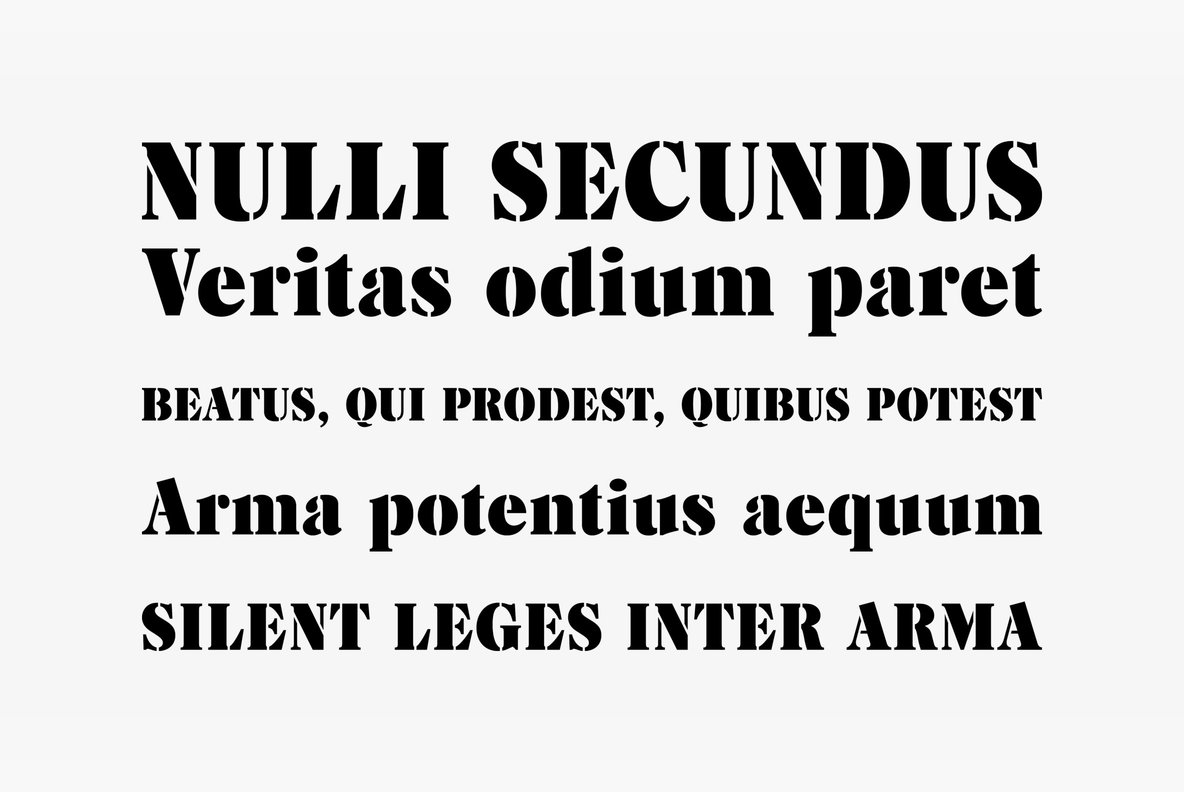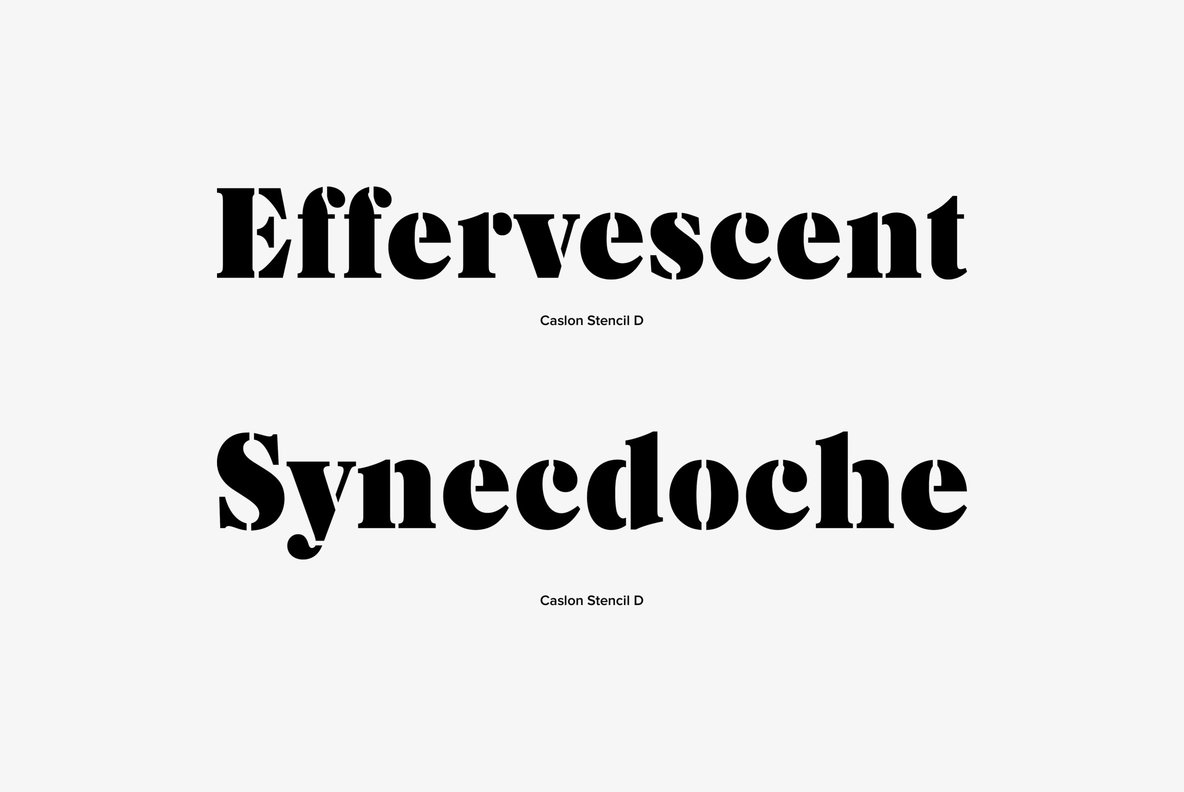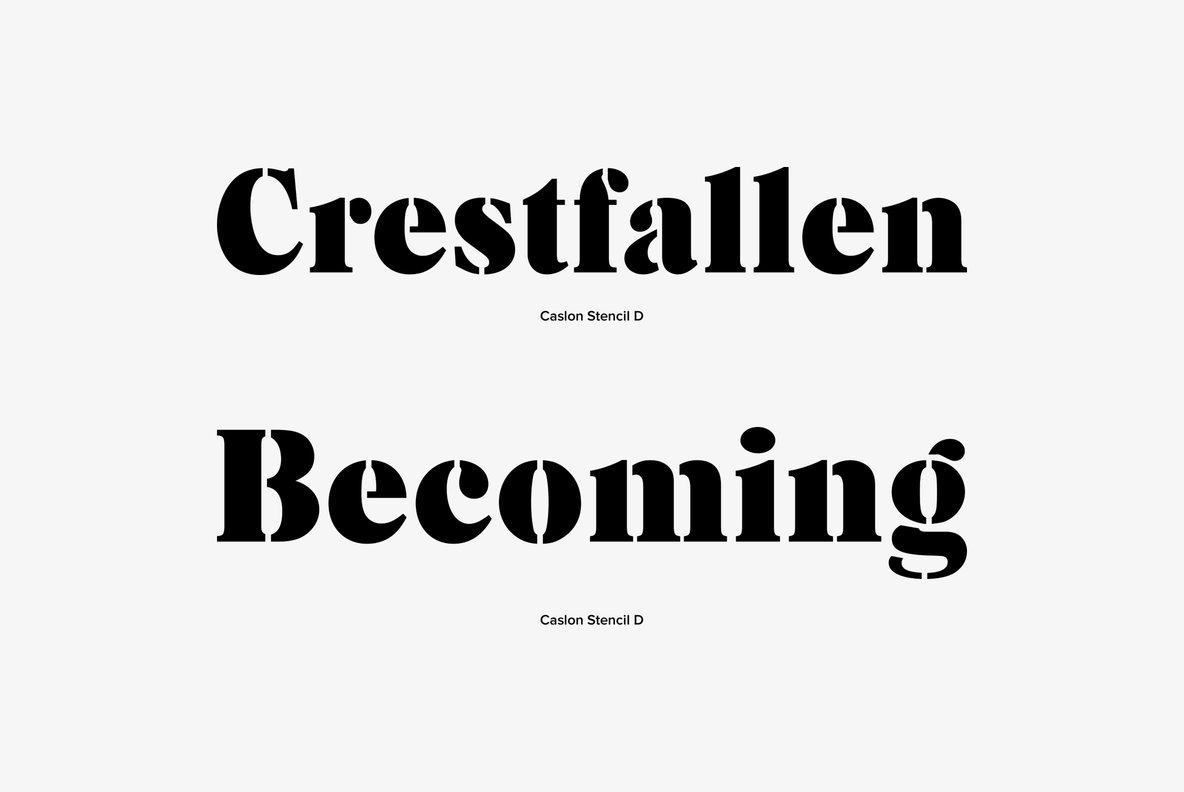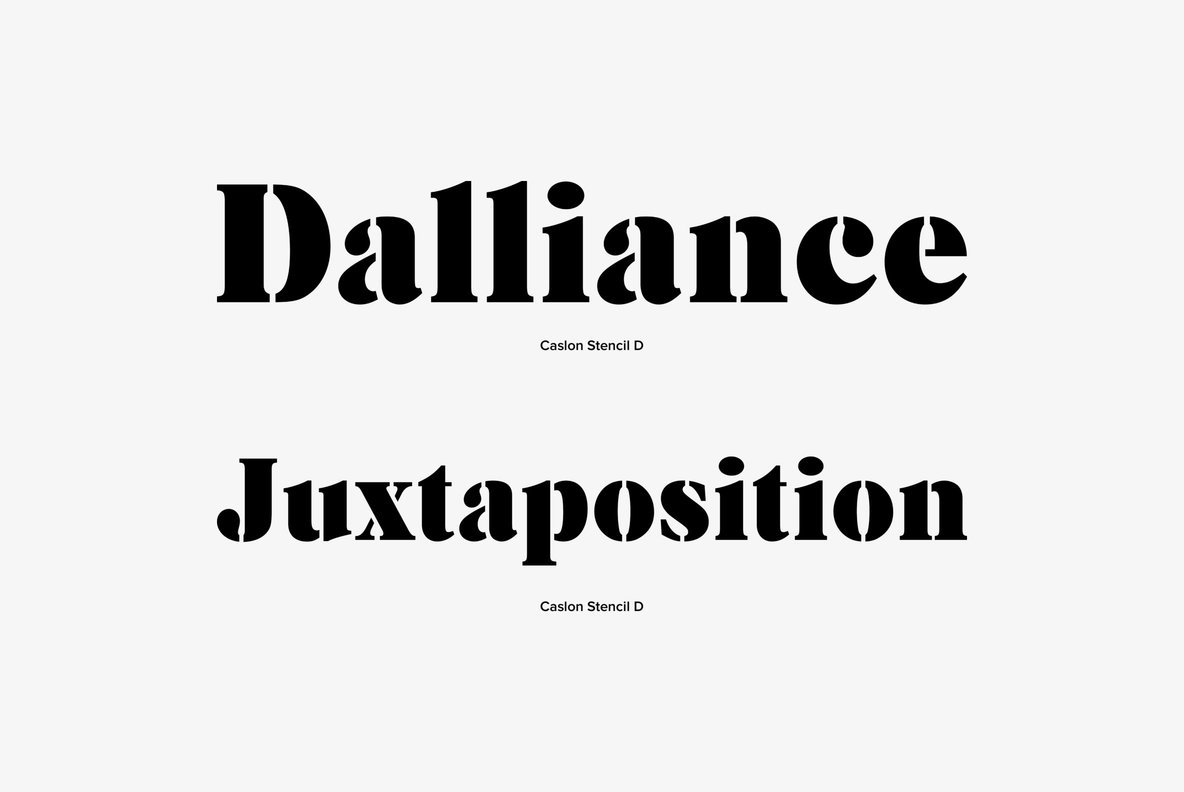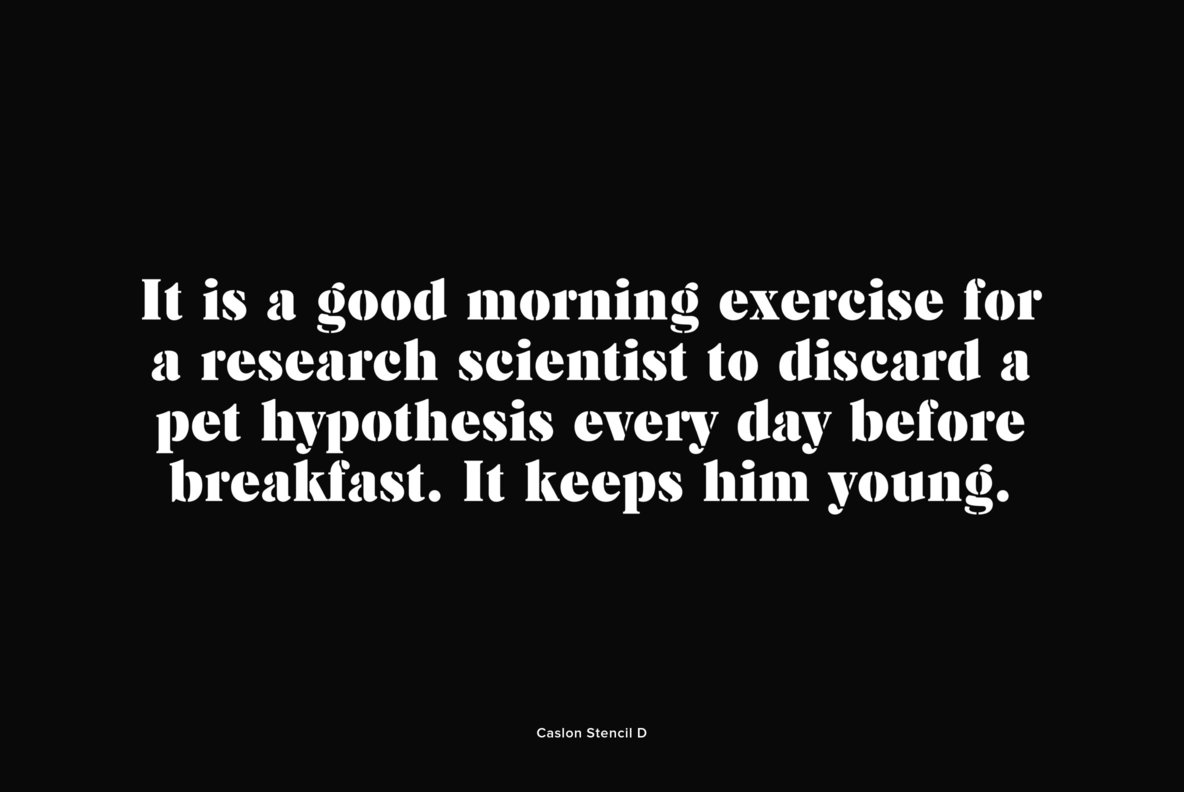
Caslon Stencil
Originally designed and published by Letraset, Caslon Stencil is a stencil font design, now released by URW. Caslon Stencil contains language support for West, East, Turkish, Baltic, and Romanian.